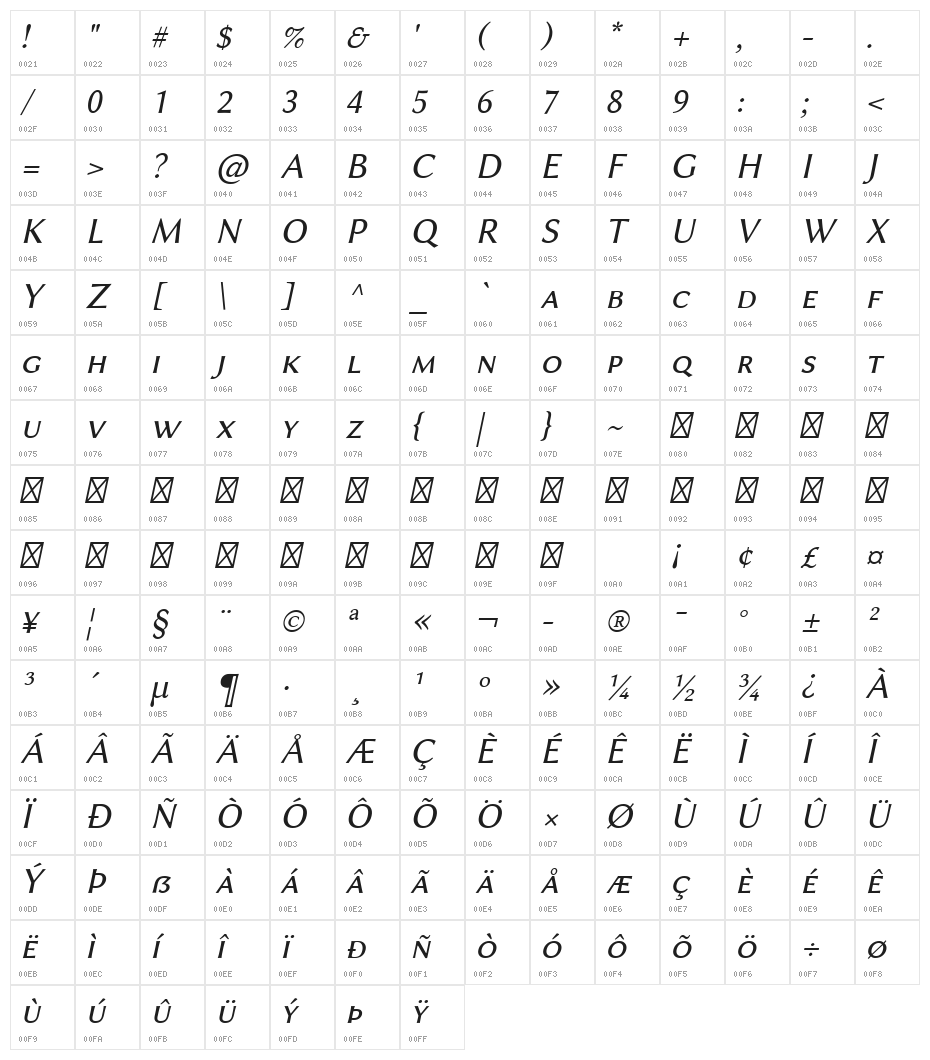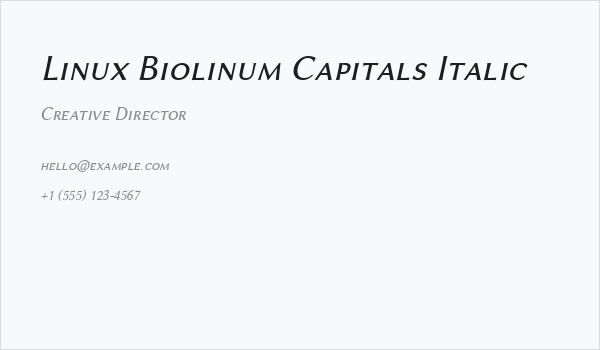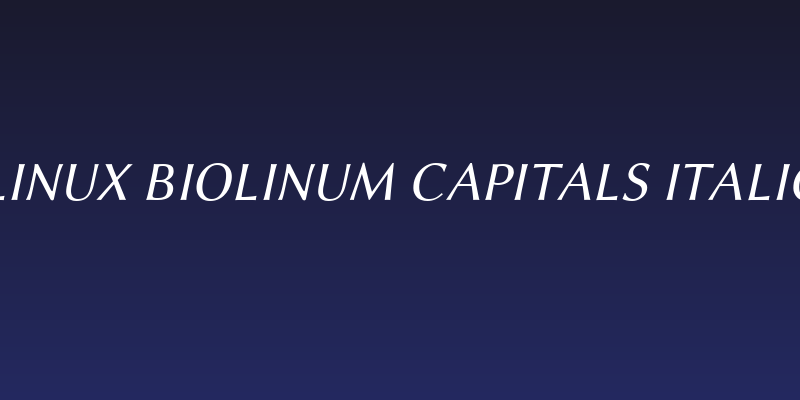
Linux Biolinum Capitals Italic Font
Linux Biolinum Capitals Italic Description
This font features a sleek and elegant italic style, characterized by its smooth, flowing lines and slightly condensed letterforms. The uppercase letters are prominently displayed, with a subtle slant that adds a dynamic and sophisticated touch. The numerals and special characters maintain the same italicized style, ensuring consistency across all glyphs. The font's design is clean and modern, making it suitable for a variety of applications where a touch of elegance is desired.
| Use Case | Headlines, Logos, Editorial |
| Proposed Projects | Ideal for use in formal invitations, elegant branding projects, stylish editorial layouts, and sophisticated website headers. |